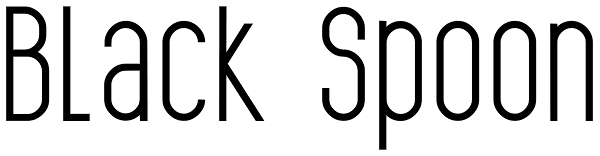
Black Spoon
Black spoon is a basic display font made for print. It was created for an Artbook about reptiles. It needed to be round, clear and modern.